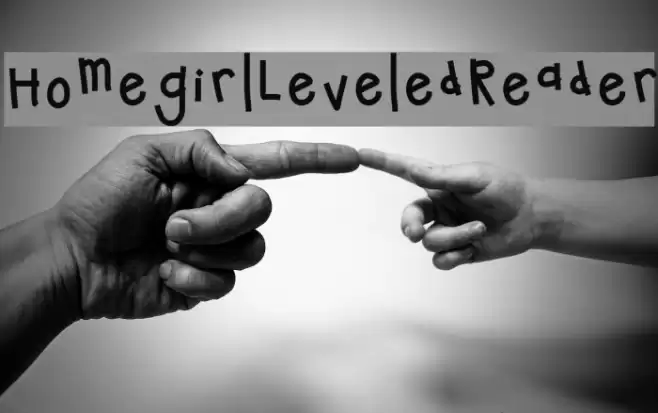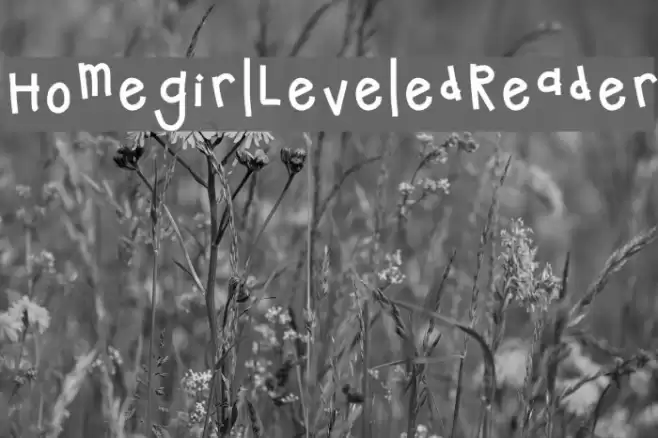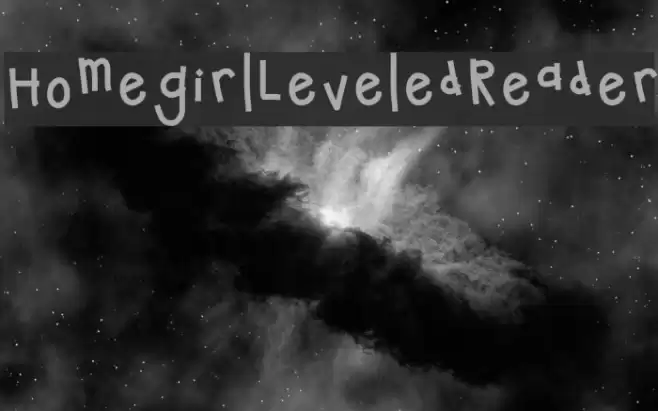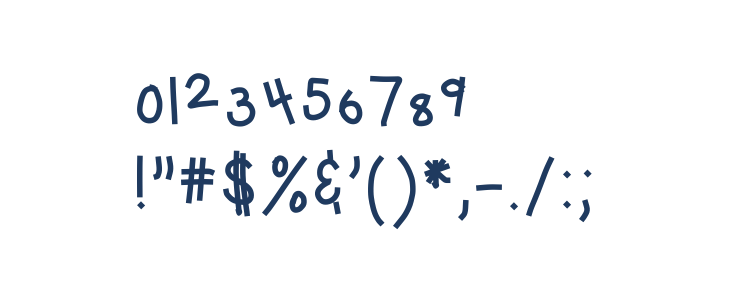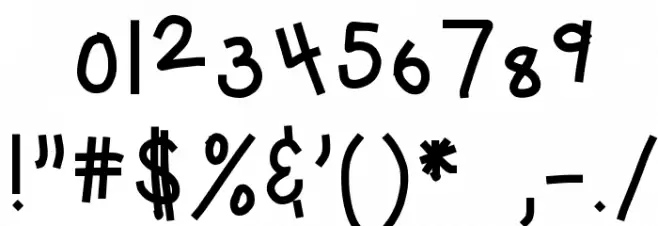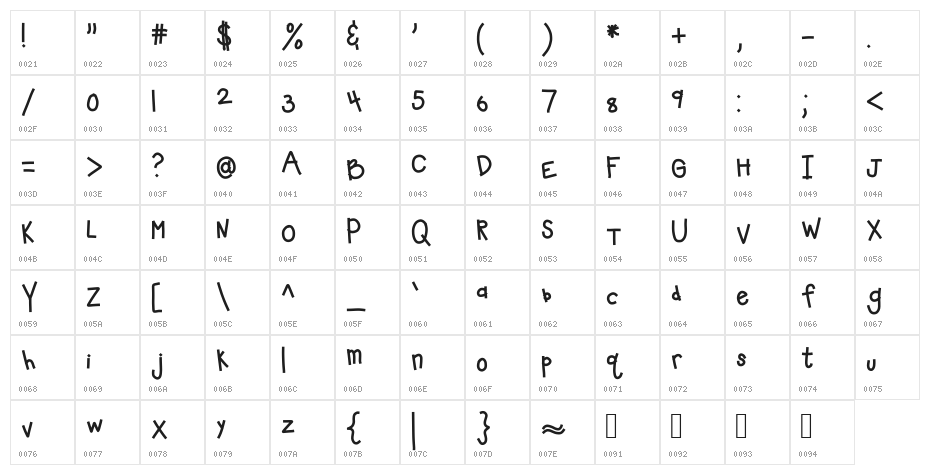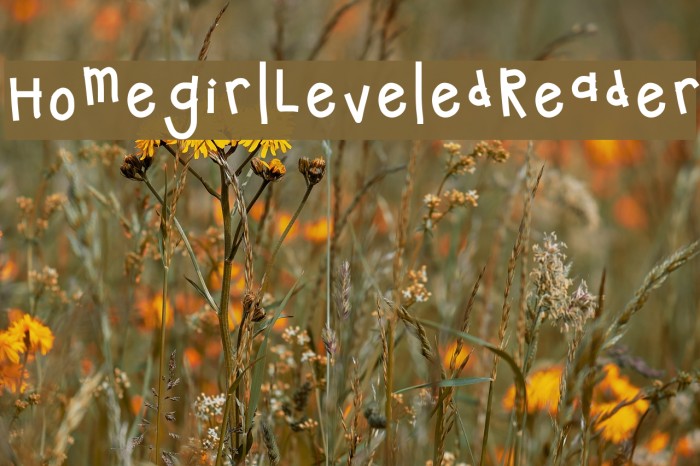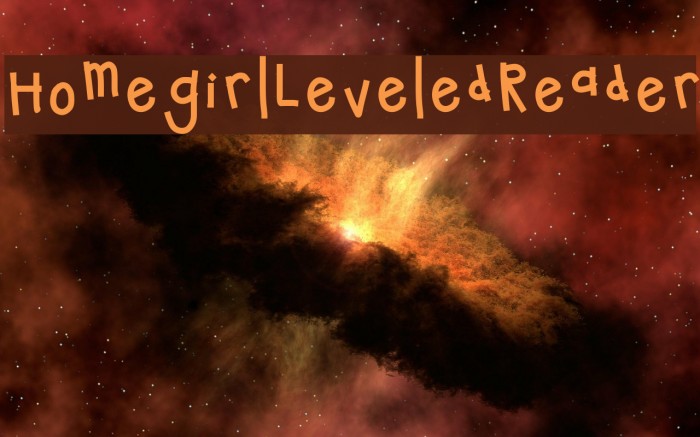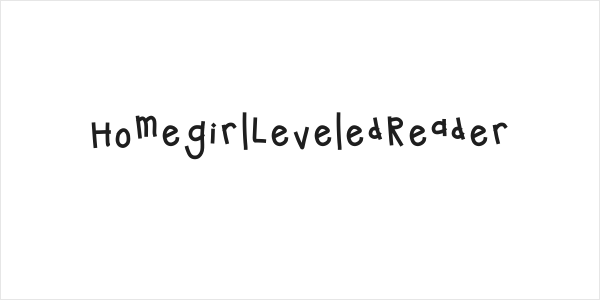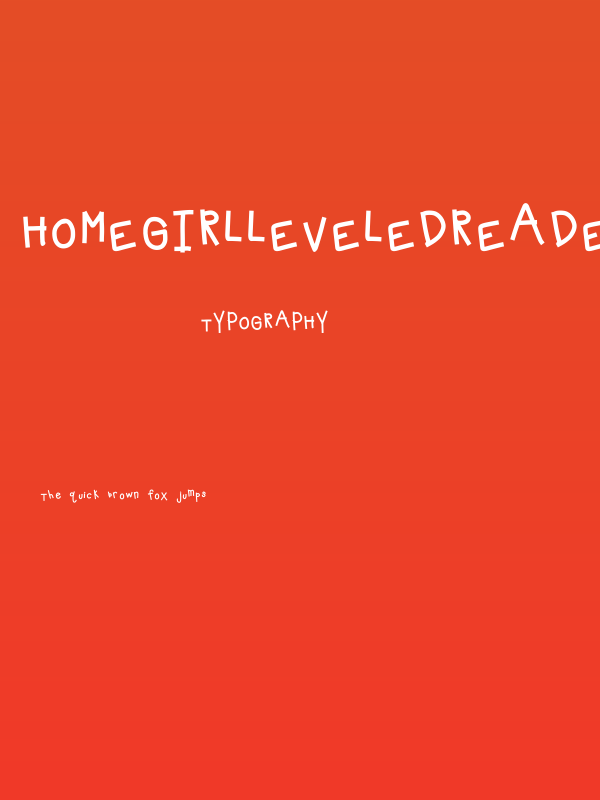
HomegirlLeveledReader Font
HomegirlLeveledReader Description
This font features a playful and informal style with a handwritten appearance. The characters are slightly irregular, giving it a whimsical and casual feel. The uppercase letters are bold and distinct, while the lowercase letters maintain a consistent flow with a touch of quirkiness. Numbers and special characters follow the same playful design, making the font versatile for creative projects. The overall look is approachable and friendly, suitable for designs that aim to convey warmth and personality.
A playful, handwritten font with a whimsical and informal style from Uncategorized fonts.
- Proposed Projects: Ideal for children's books, greeting cards, casual invitations, and playful branding.
- Overall Style: Casual, Playful
- Use Case: Headlines, Informal text, Creative projects